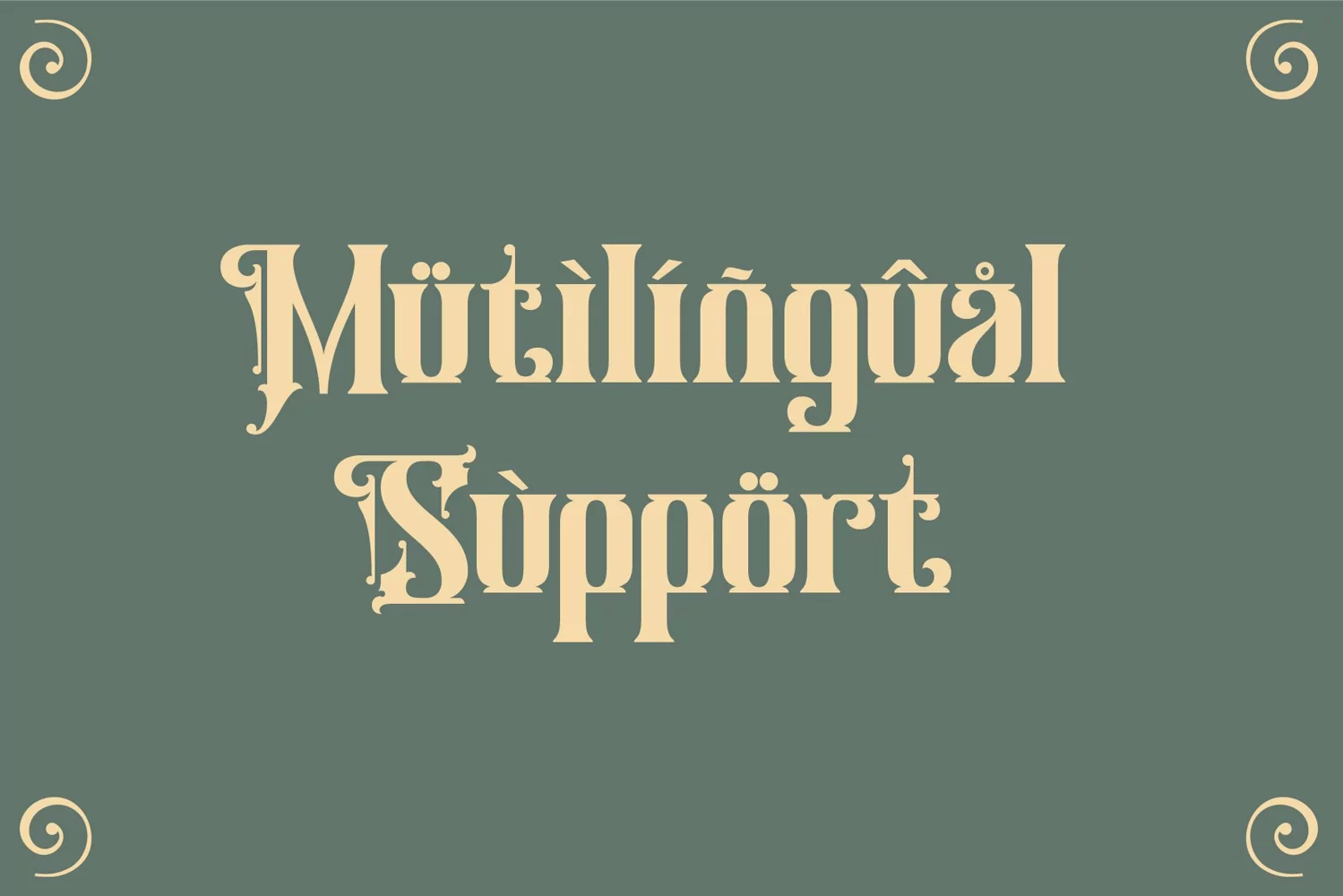
Introduce Rustic Taylor, blackletter font with vintage style.
If you looking for strong font for display or title this item is a great choice to make your design authentic.
Rustic Taylor font has 200 character glyphs included the multilingual and alternate glyphs, the alternate glyphs will make your design more decorative.